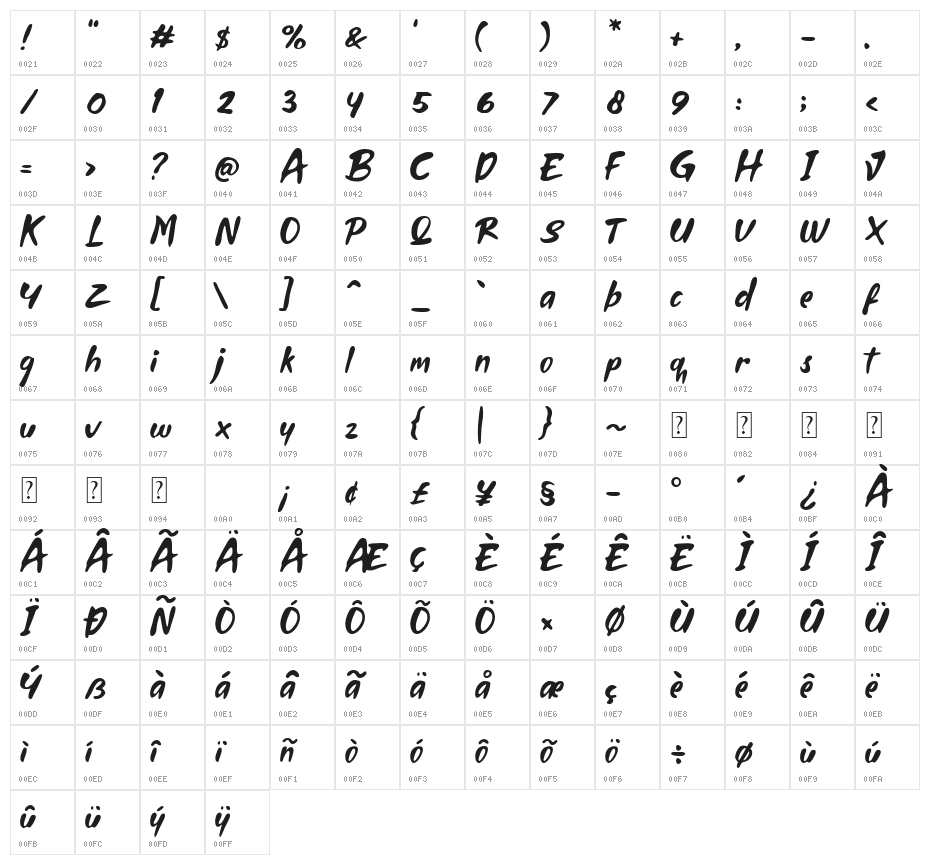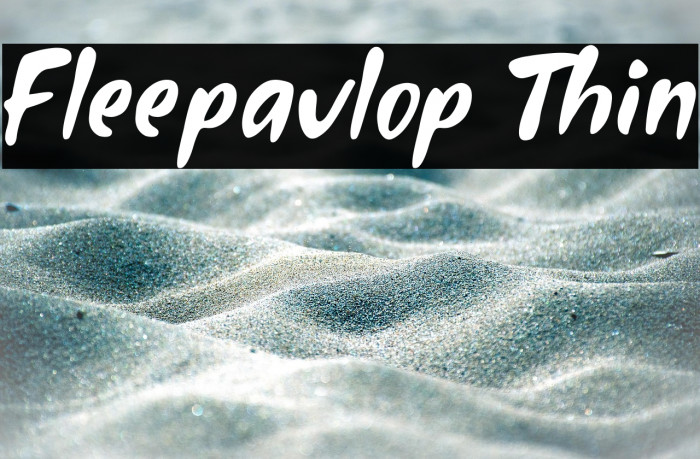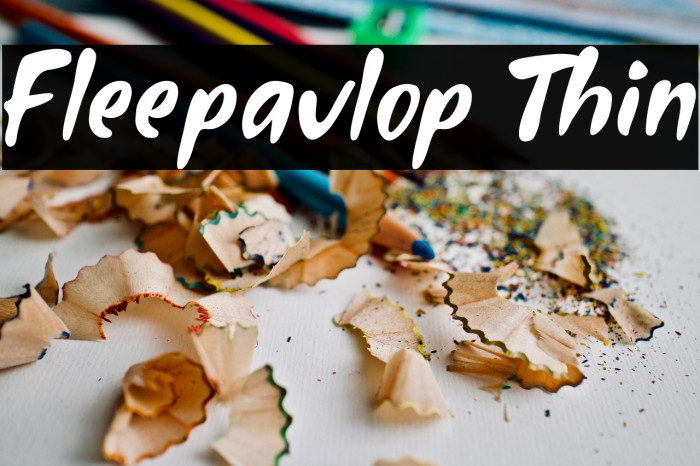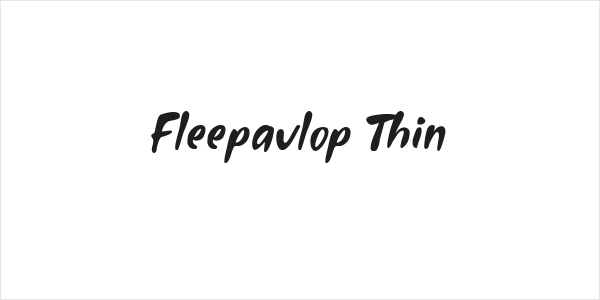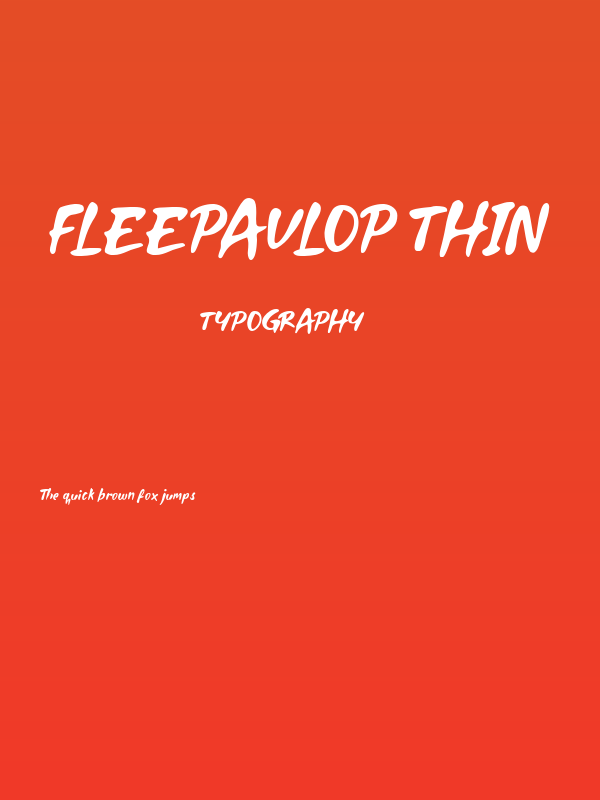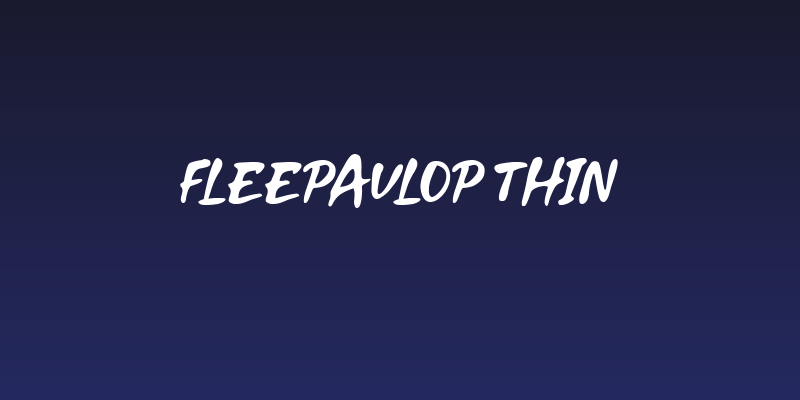
Fleepavlop Thin Font
Fleepavlop Thin Description
This font features a bold, energetic script style with a playful and dynamic appearance. The letters are slightly slanted, giving it a casual and informal feel. The strokes are thick and consistent, with rounded edges that add a friendly touch. The uppercase and lowercase letters maintain a cohesive look, while the numbers and special characters blend seamlessly with the overall design. This font is well-suited for projects that require a lively and approachable aesthetic.
| Proposed Projects | Ideal for branding, posters, invitations, and social media graphics that aim to convey a fun and energetic vibe. |